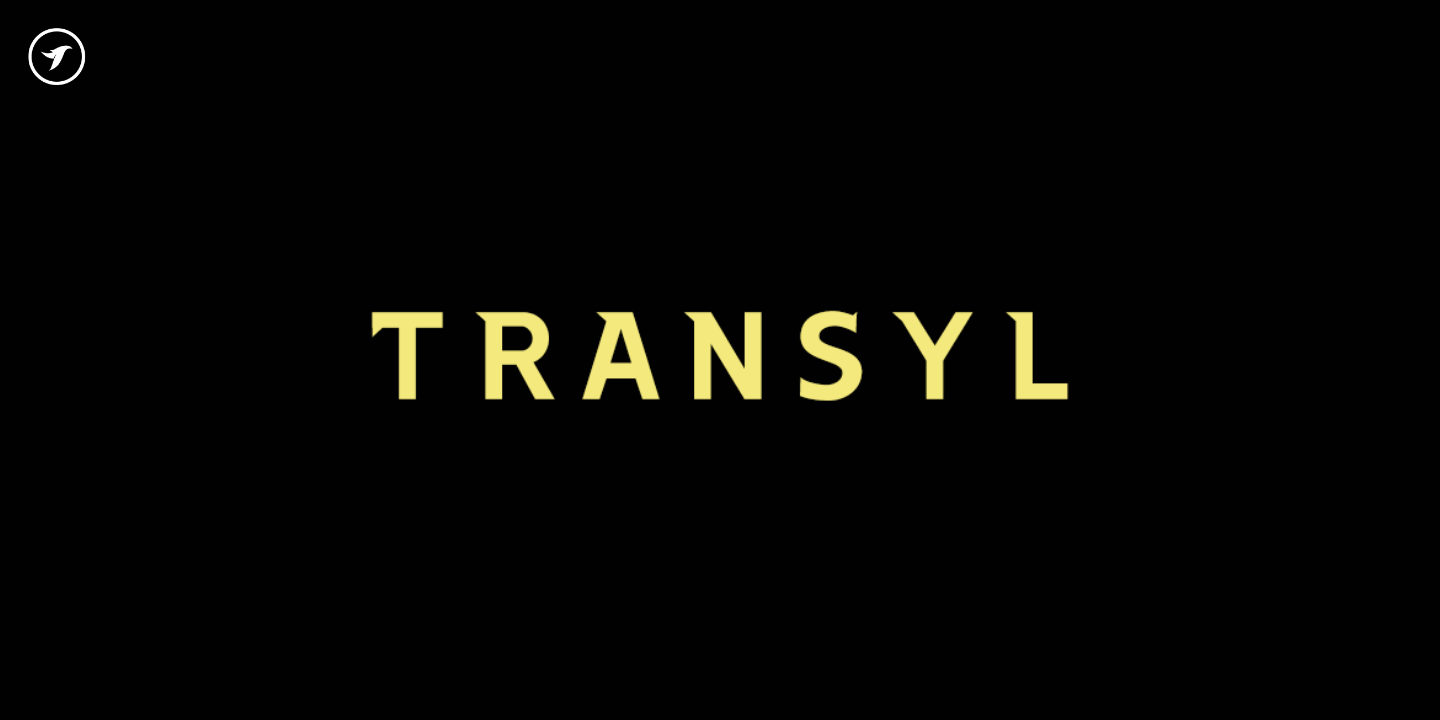
TRANSYL
Designed by Jean P. Johnson, TRANSYL is a display sans font family. This typeface has four styles and was published by Fontastica.
TRANSYL, a unique all-caps display typeface inspired from elegant medieval design patterns when blended with modernism. This typeface is perfect for headlines, big text, branding, logotypes & display usage. This font is also perfect for creating outstanding logos, promotional content and marketing graphics that can really grab attention from your visitors. Please see the examples shown above to get an idea about the capability of this typeface.
Designer Jean P. Johnson